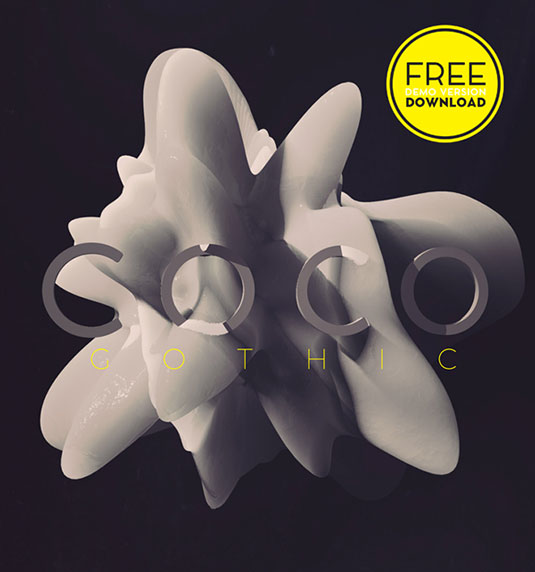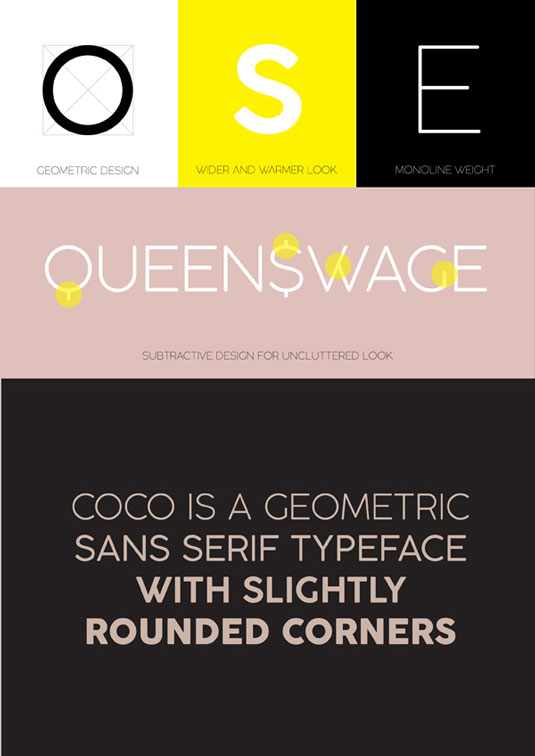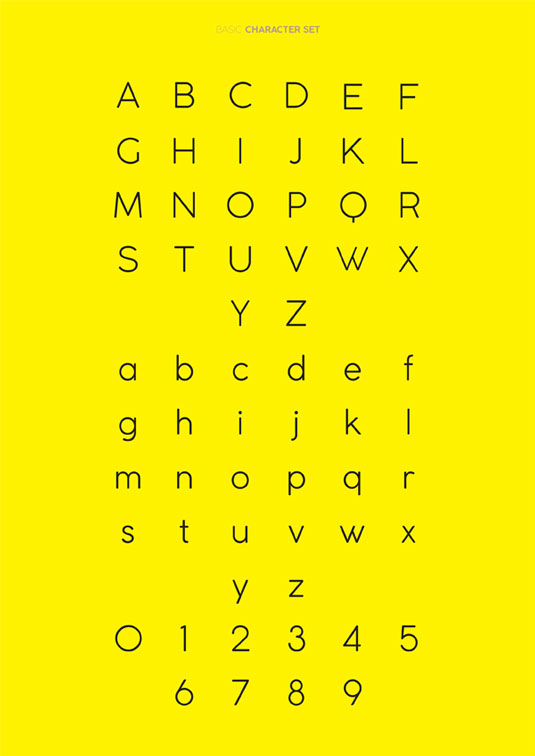
Font of the day: Coco Gothic
Coco Gothic from zetafonts
A contemporary, geometric sans serif, Coco Gothic was inspired by traditional grotesque typefaces, including Futura and Avantgarde. A collaborative effort between designers Francesco Canovaro, Cosimo Lorenzo Pancini, Bruno La Versa and zetafonts, Coco Gothic comes in six weights with matching italics and extended character set.